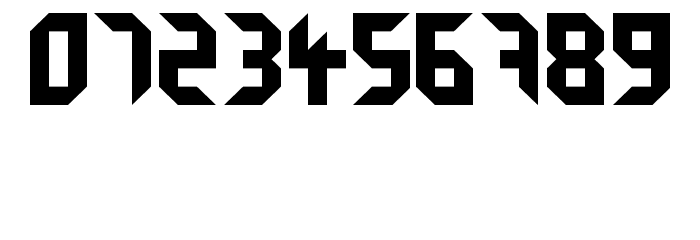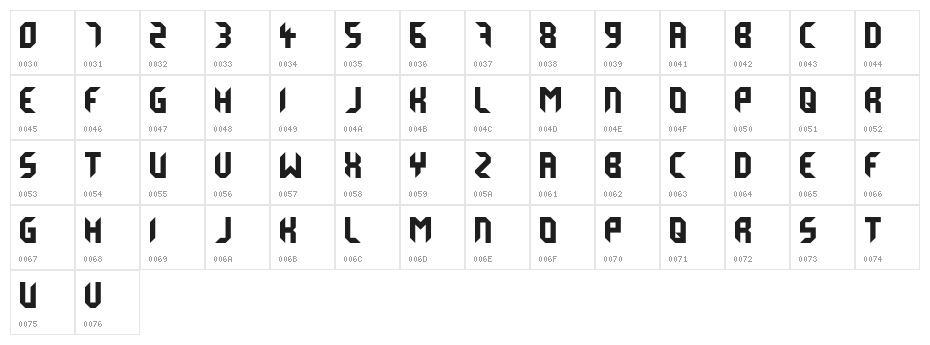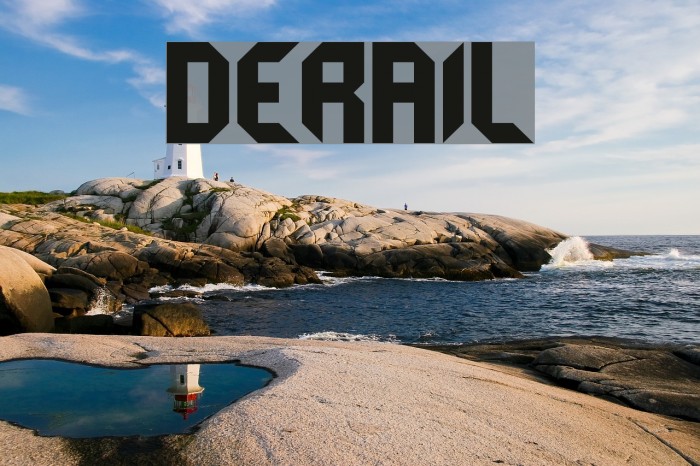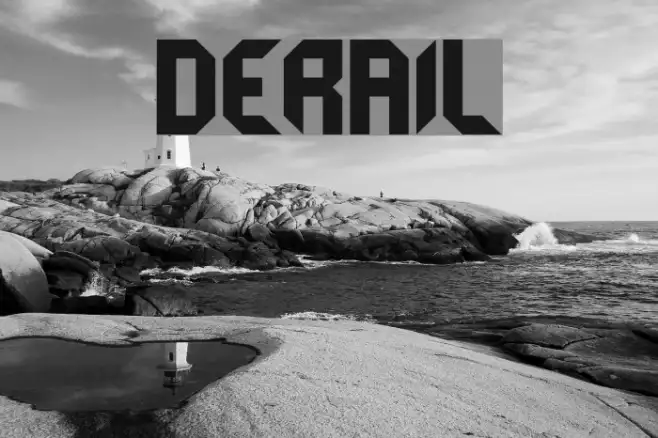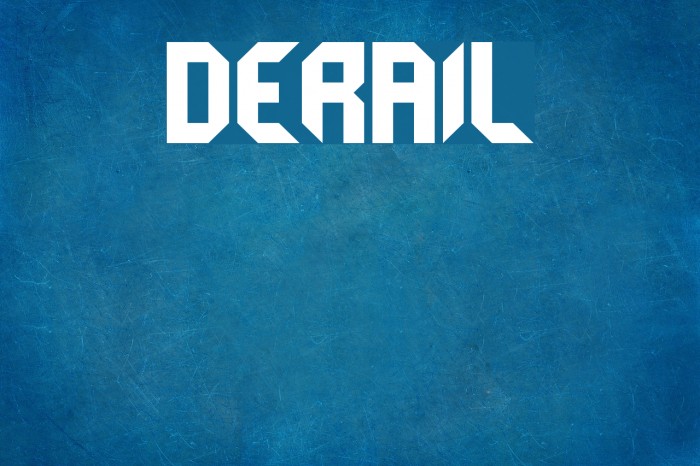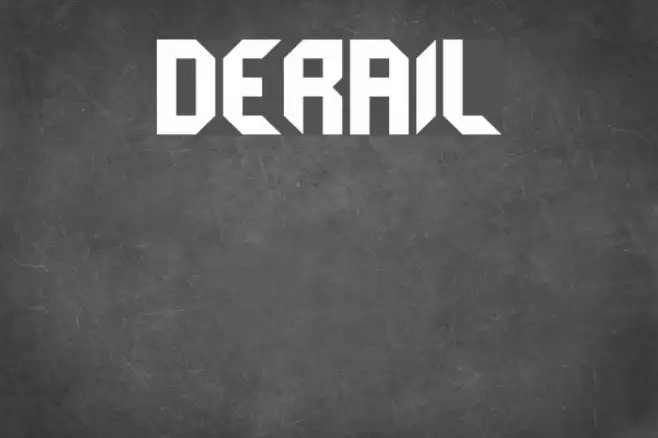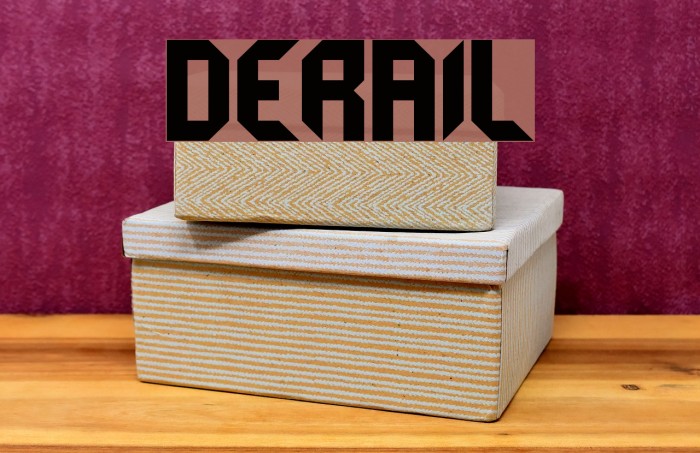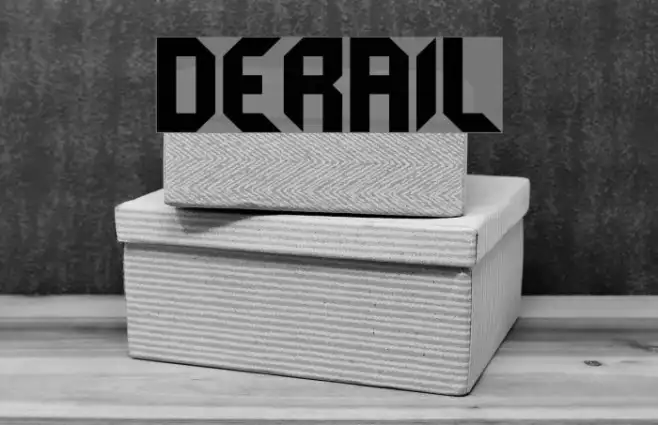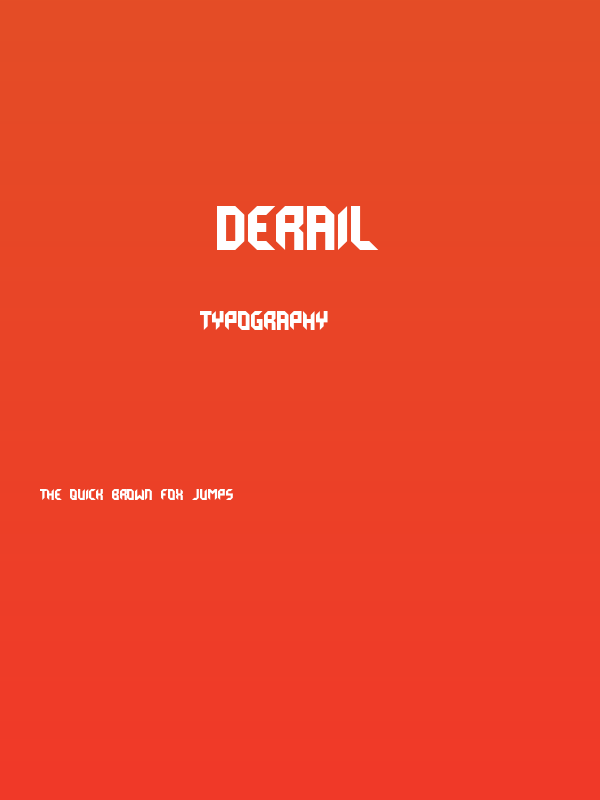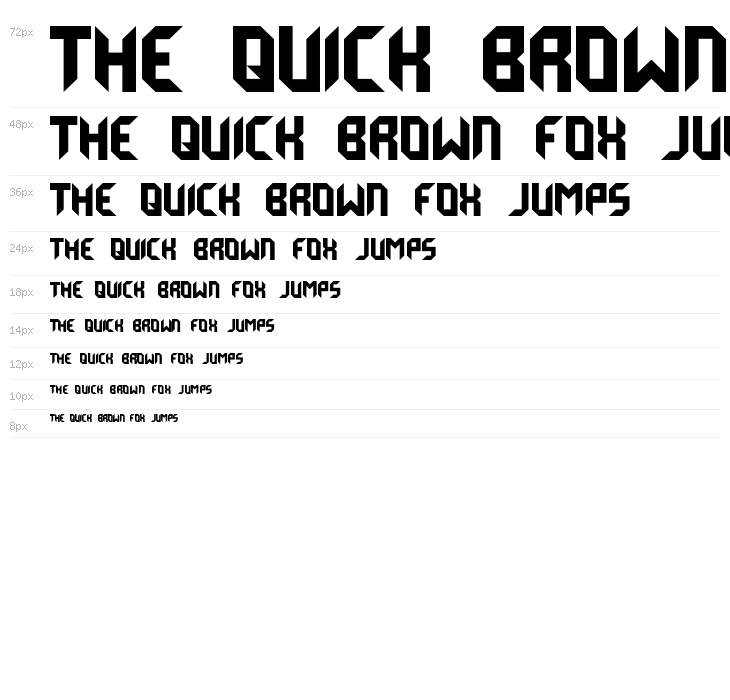
derail Font
derail Description
This font features a bold, geometric design with sharp angles and a futuristic aesthetic. The characters are constructed with a consistent thickness, giving them a strong and impactful presence. The angular cuts and straight lines create a sense of movement and energy, making it ideal for modern and dynamic designs. The uppercase letters are particularly striking, with a uniform height that enhances readability while maintaining a unique style. The numbers follow the same design principles, ensuring consistency across all characters.
| Proposed Projects | Ideal for branding, posters, video game titles, and any project requiring a modern, edgy look. |